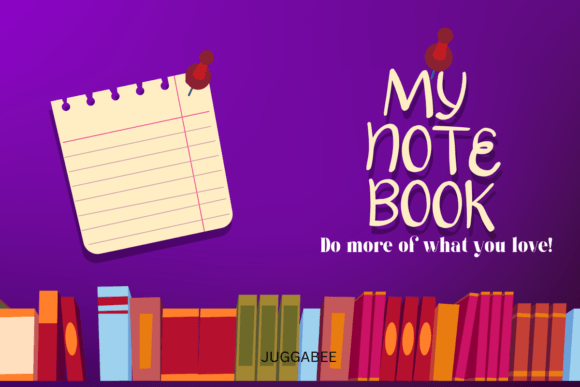
Step into the world of My Note Book Font, a beautifully crafted handwritten typeface that will transform your designs into captivating works of art. This script font, brought to life by the talented Juggabee, is more than just a collection of letters; it's an expression of your individuality, a handwritten masterpiece that adds a personal touch to all your creative endeavors.
Immerse yourself in the charm of My Note Book Font, where each character dances across the page with an effortless elegance, reminiscent of a handwritten letter from a loved one. Its delicate strokes and flowing curves evoke a sense of nostalgia, drawing you into a world of heartfelt sentiments and timeless memories.
With My Note Book Font, your designs will radiate a touch of sophistication and creativity that will leave a lasting impression. Its versatility knows no bounds, seamlessly adapting to a myriad of projects, from logos and branding to invitations and stationery. Unleash your inner artist and let your imagination run wild as My Note Book Font transforms your ideas into visual masterpieces.
Picture your wedding invitations adorned with the enchanting script of My Note Book Font, carrying the promise of a day filled with love and joy. Envision your social media posts captivating your audience with their unique charm, drawing them into your captivating world of creativity. And as you pen down your thoughts and feelings in a journal, let My Note Book Font accompany you, preserving your memories in a beautifully handwritten style.
My Note Book Font is not just a font; it's an extension of your creativity, a tool that empowers you to express yourself in ways you never thought possible. Embrace the art of handwritten typography and let your designs blossom with the beauty and charm of My Note Book Font.